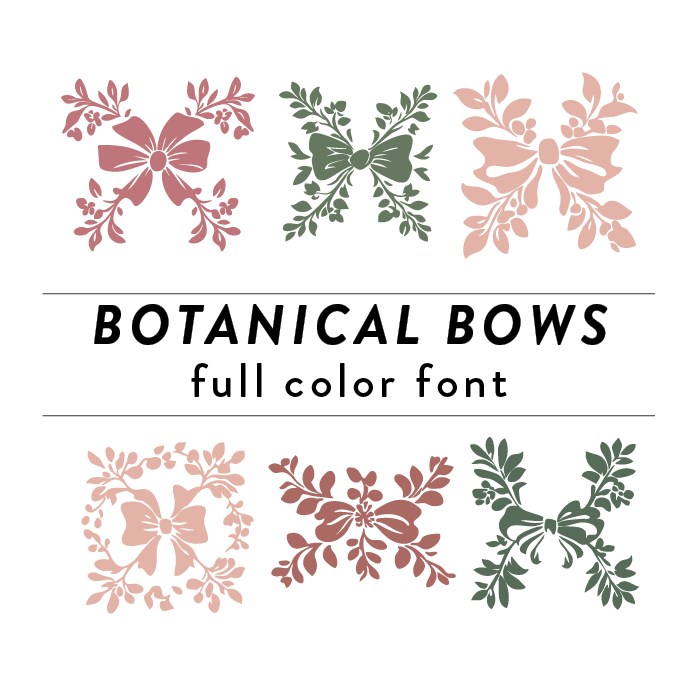
Botanical Bows Full Color Font is a whimsical and festive font design featuring intricate bows made of branches, leaves, and flowers. Perfect for adding a touch of nature and celebration to any design project. Ideal for use in invitations, greeting cards, and other festive occasions. This font is a OTF craft font that will appear in color only when used with the silhouette software.